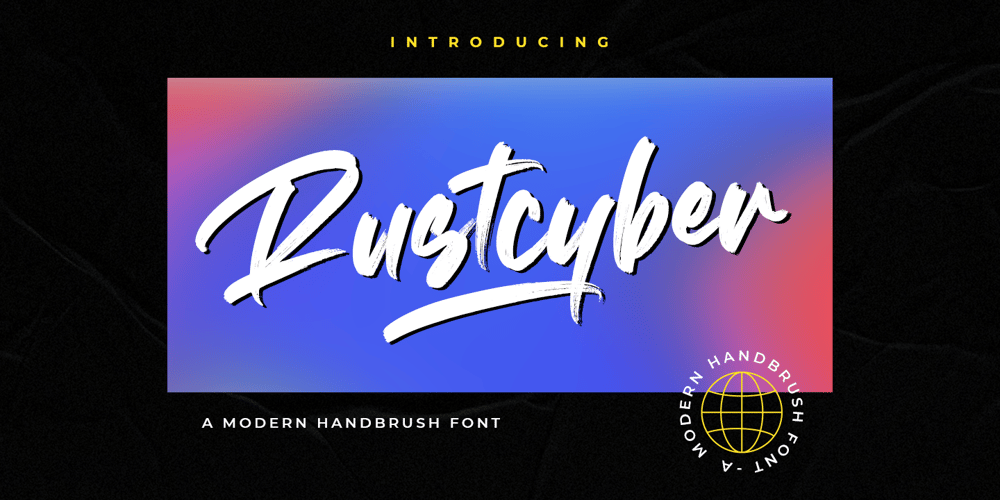
Rustcyber Font Family was designed by Hayinah and published by Rockboys Studio. Rustcyber contains 2 styles and family package options. Rustcyber is a modern brushed display font, incredibly adaptable to all sorts of urban or street related designs. It is suitable for any branding, product packaging, invitation, quote, label, poster, logo that you wish to create.